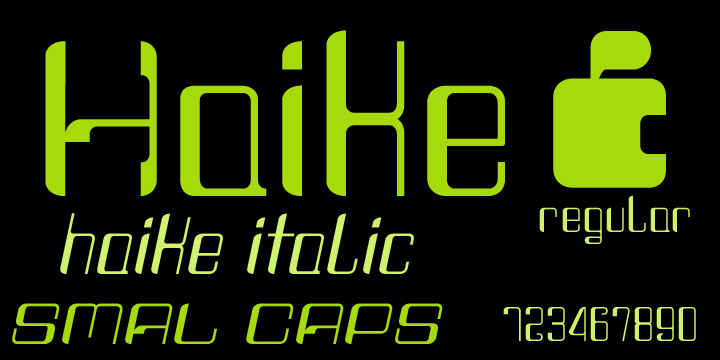
Haike
by Otto Maurer
The Haike Font Family was designed by and published by Otto Maurer. Haike contains 53 styles and family package options. More about this family
Haike is a fresh modern rounded new san serif font with alternate Caps and Ends plus many Opentype features.